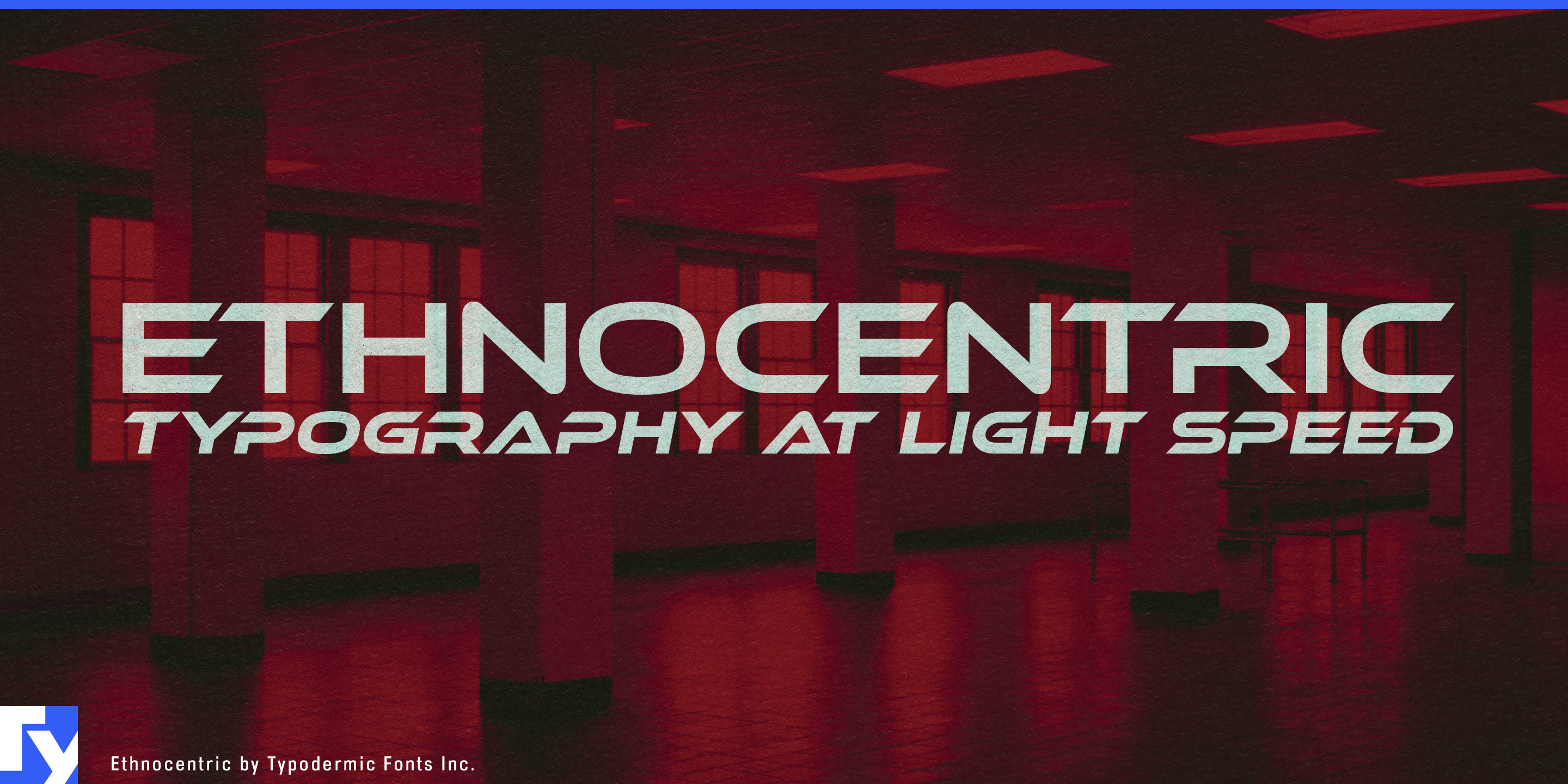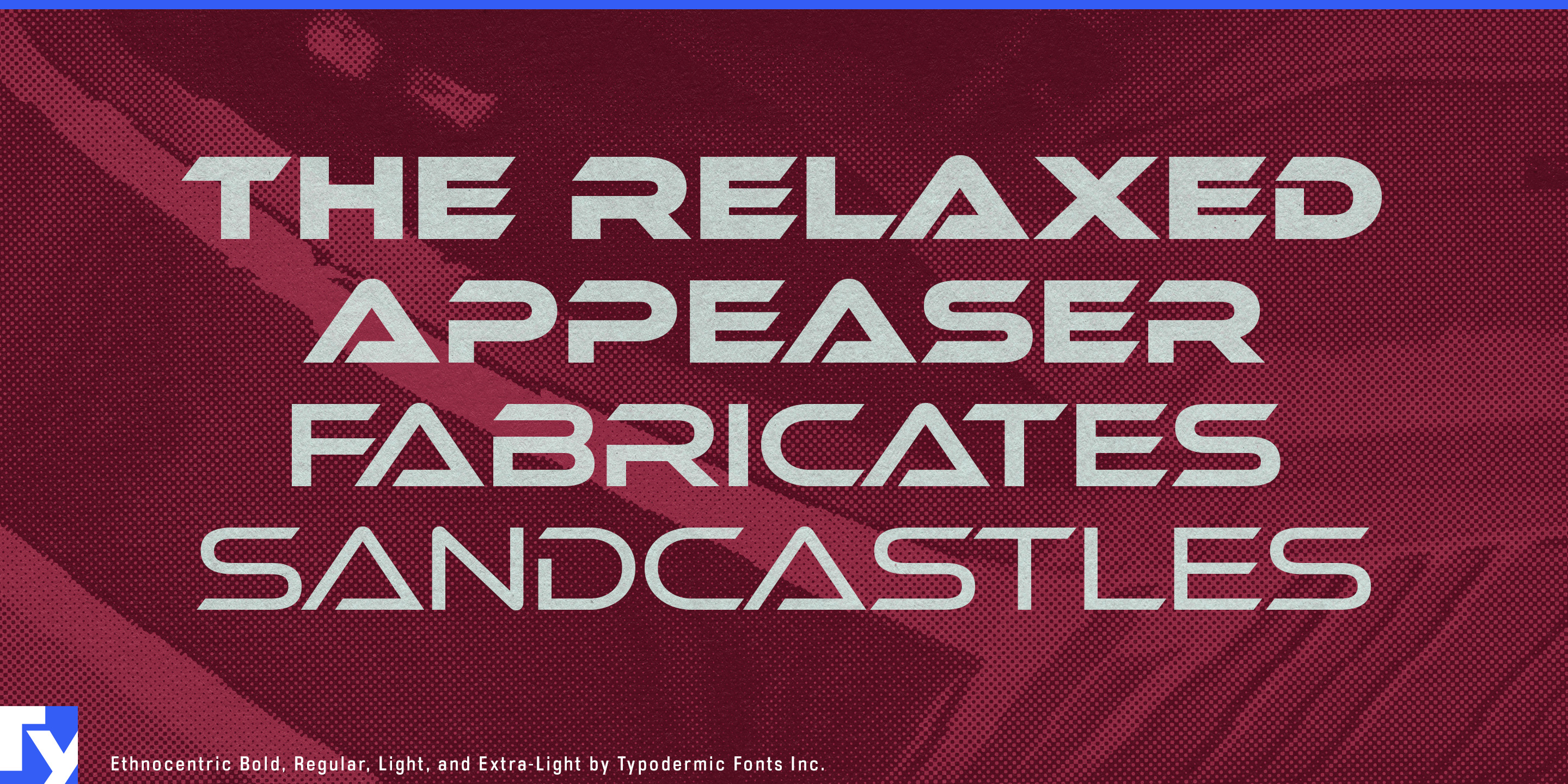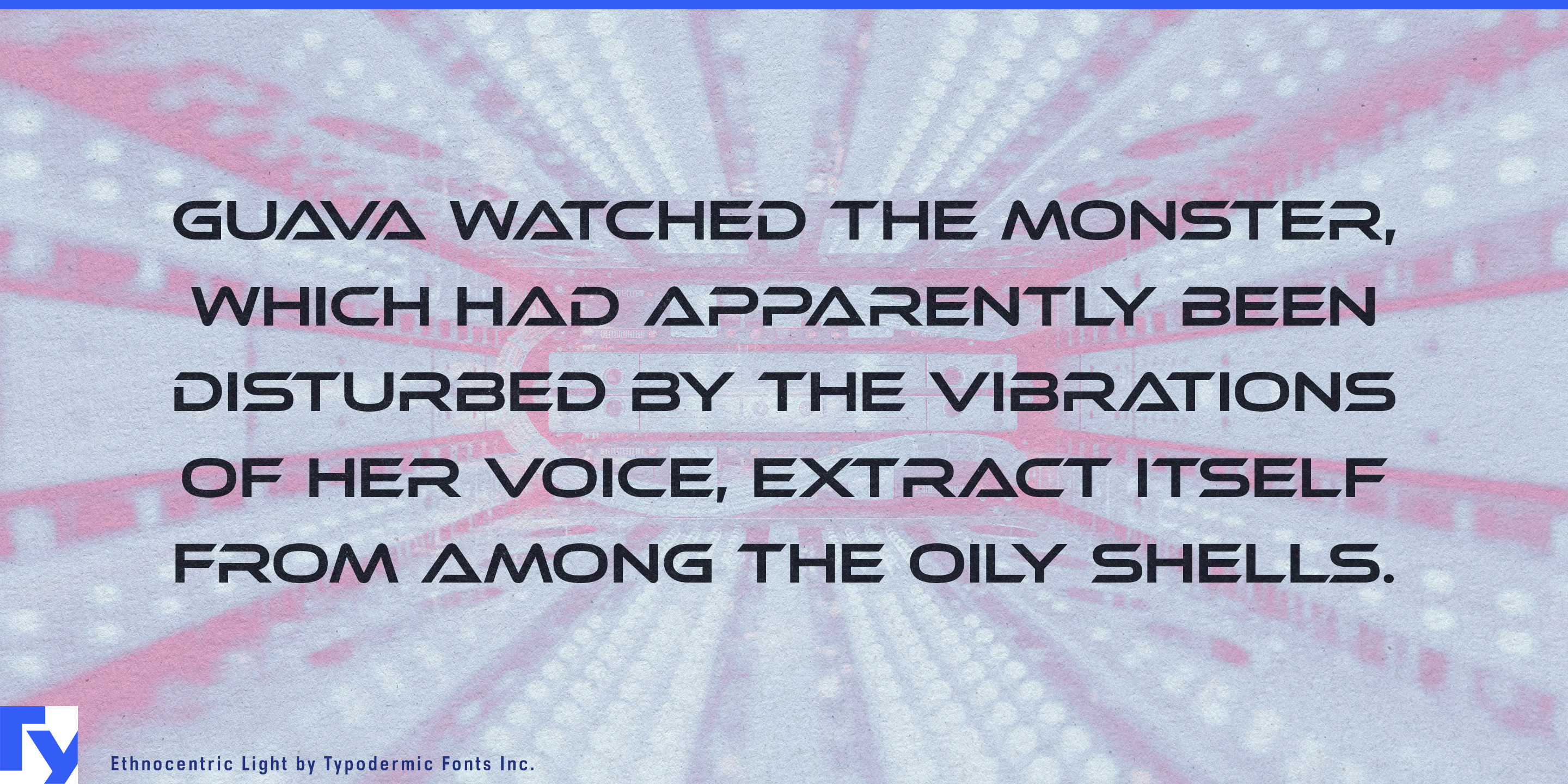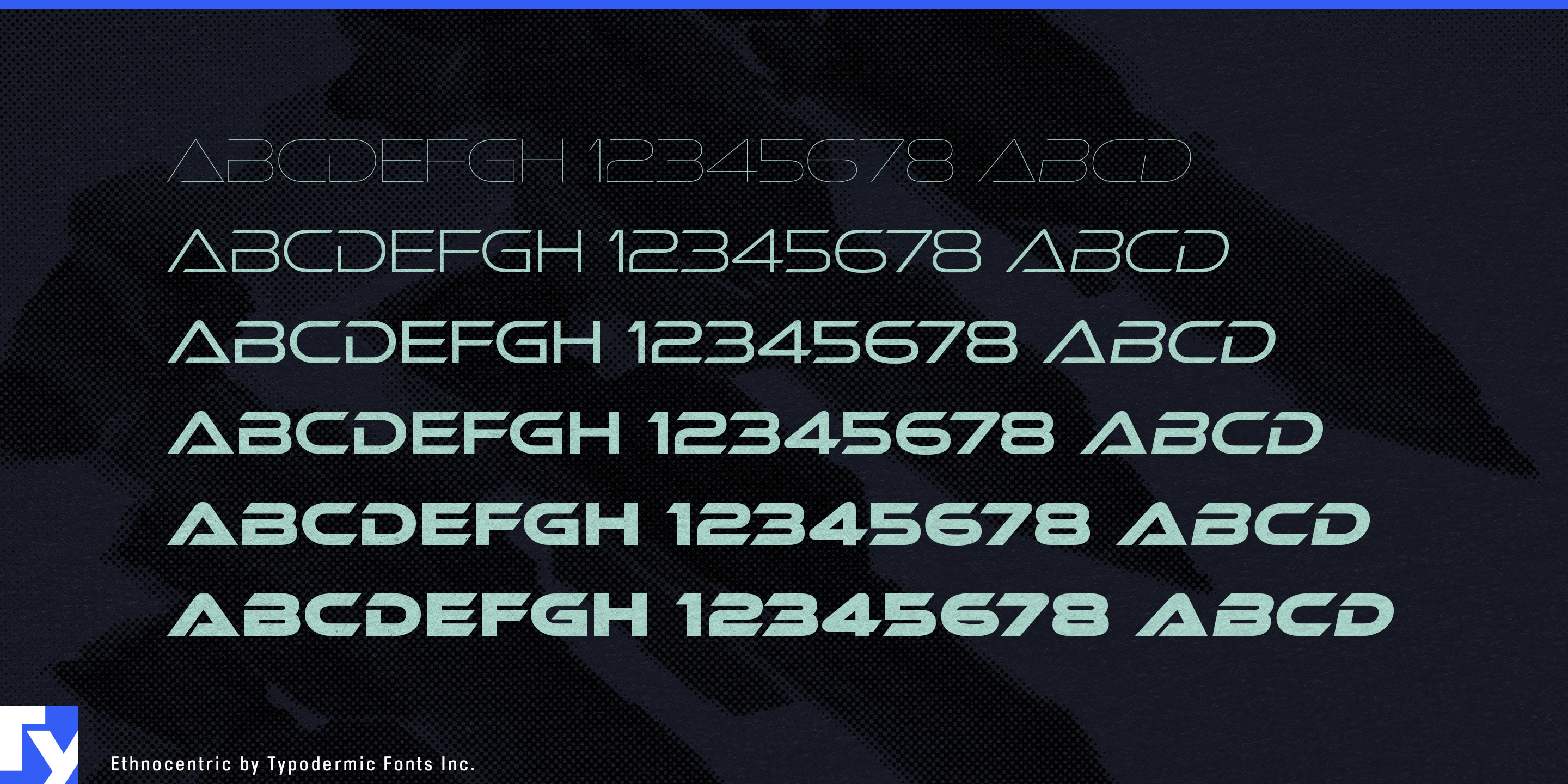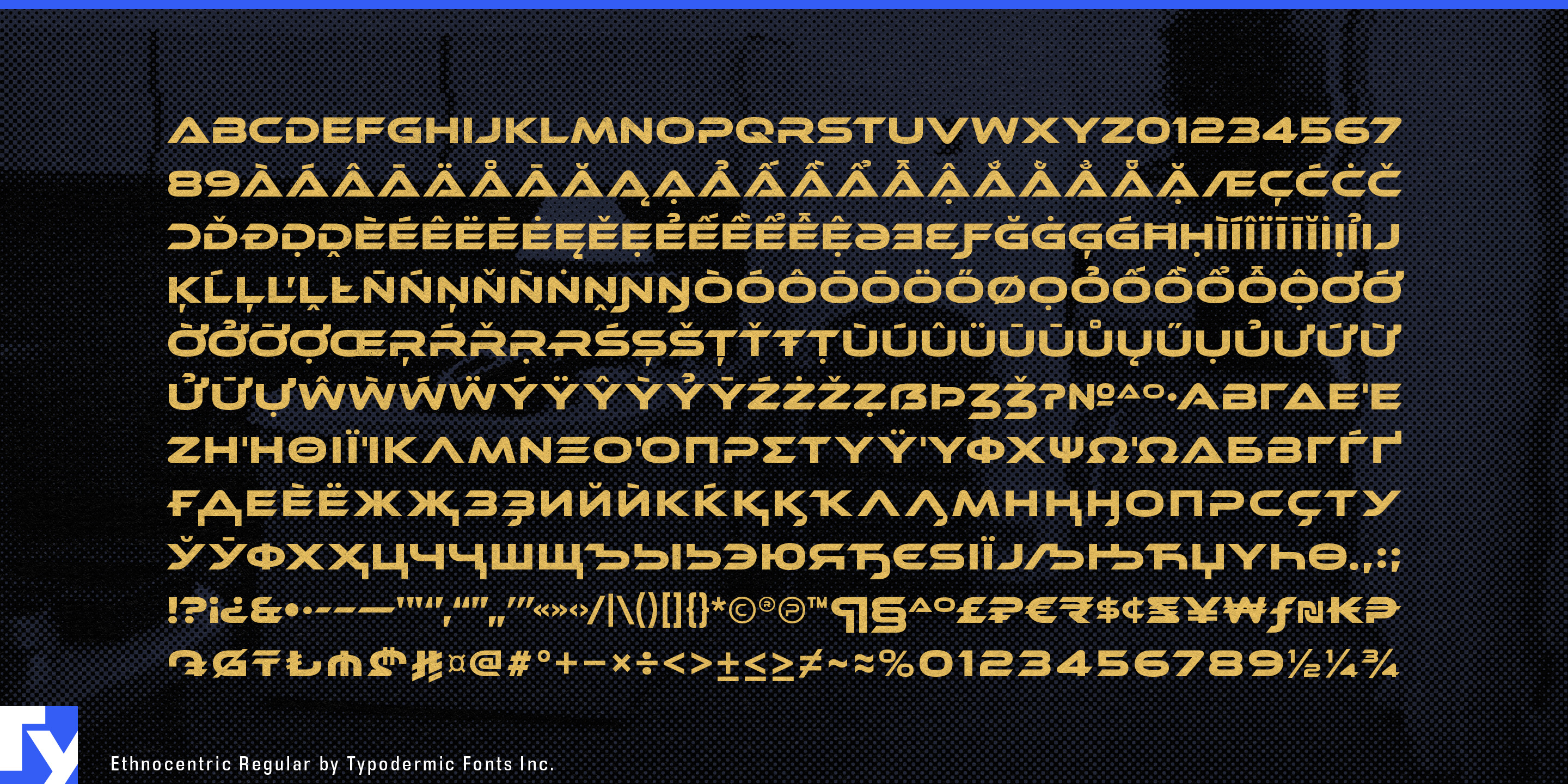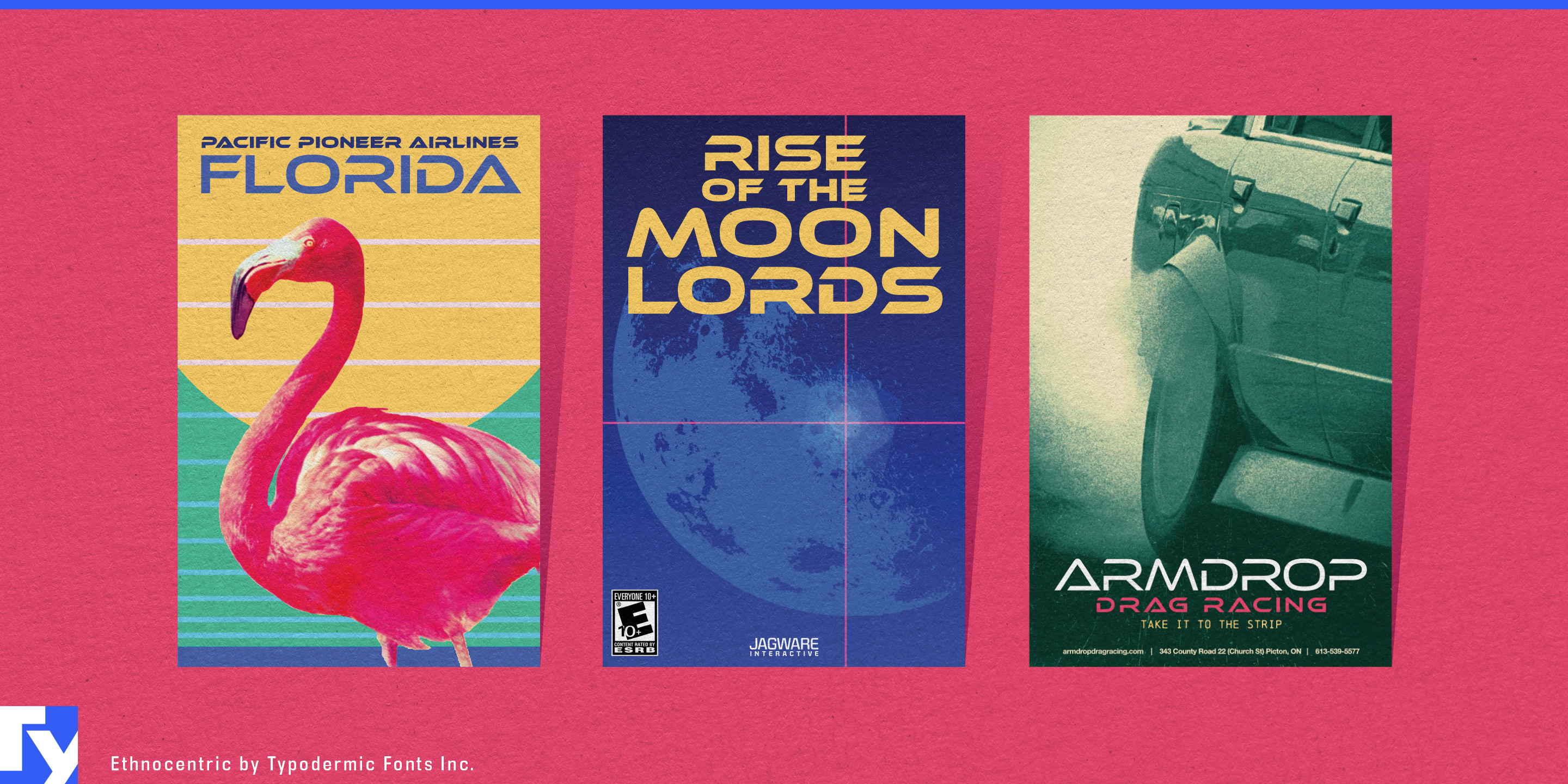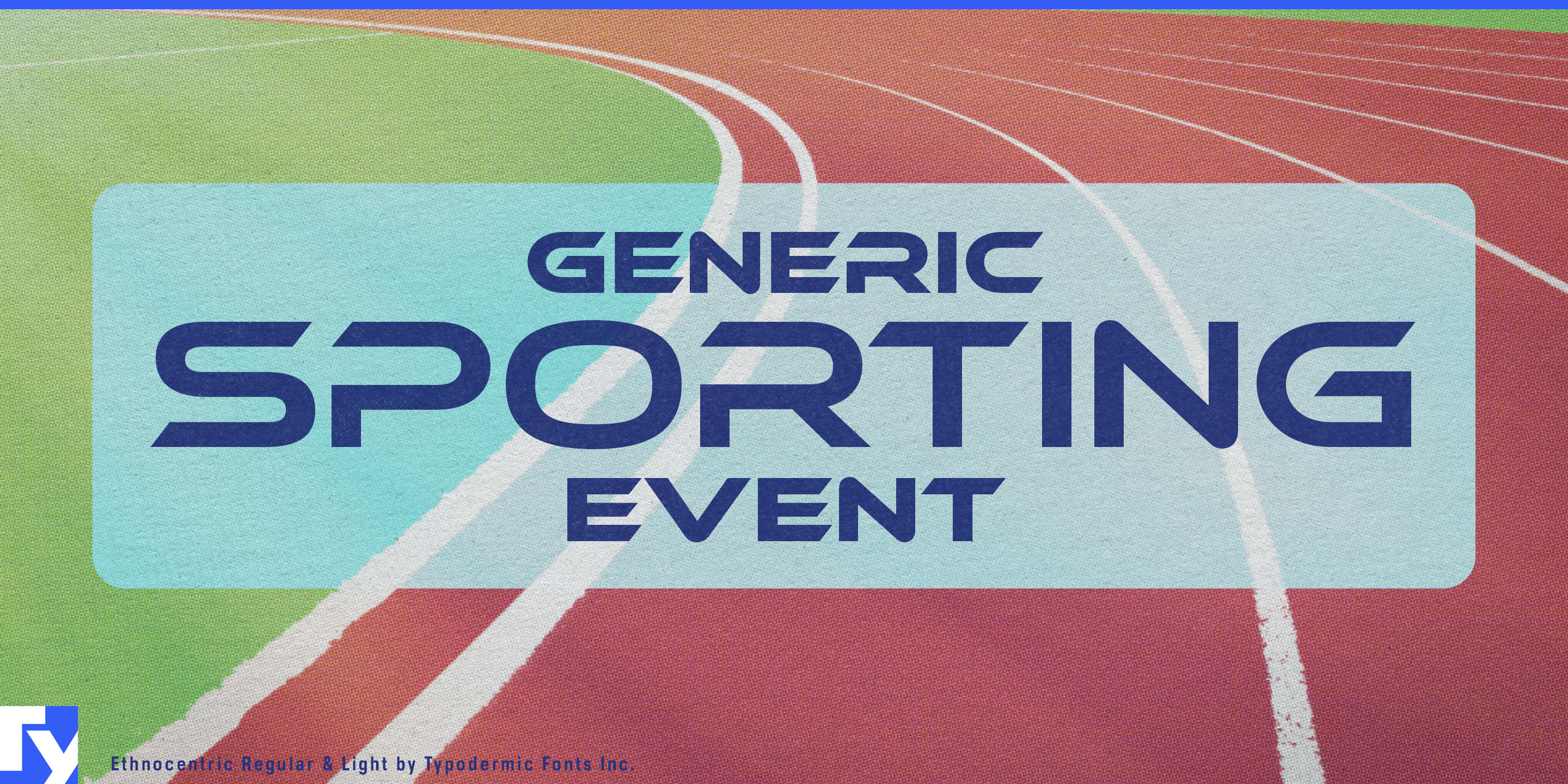
Ethnocentric
Ethnocentric is a retro-futurist staple that blends sleek geometry with the velocity of late-90s and early-2000s tech culture. Its wide stance, sharp diagonal cuts, and sci-fi “speed gaps” give every word a sense of motion, as if the letters are built to race from left to right. Lighter weights carry a surprising elegance, while the heavier cuts project sheer force, making the family adaptable from UI headers to big-screen title cards.
Born from a designer’s misremembered glimpse of a sign, Ethnocentric took on a life of its own and became a fixture in gaming, motorsports, and science-fiction branding. Over the years it has been refined, expanded, and re-engineered, but its core appeal remains the same: bold horizontals, angular precision, and a visual personality that’s instantly recognizable.
With six weights and italics, Ethnocentric offers a complete toolkit for high-impact typography. Its all-caps design and extended language support make it just as effective in a multilingual UI as it is on a film poster or product logo. Pair it with clean vector art for a crisp, modern look, or layer it over textures for gritty retro appeal.
Whether you’re channeling sci-fi nostalgia, pushing a futuristic interface, or giving a racing team its visual edge, Ethnocentric keeps the pace. Designed to grab attention at speed, it turns every headline into a destination.